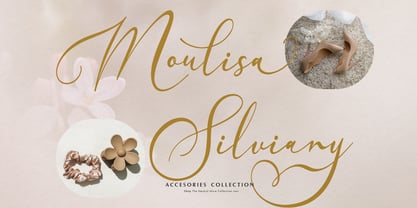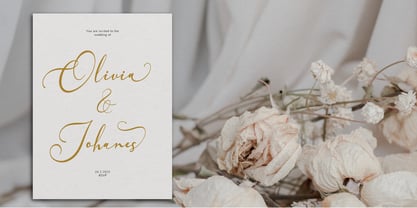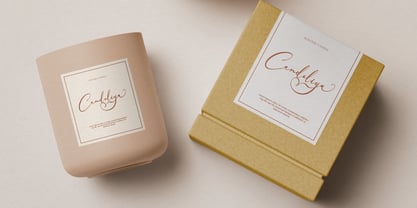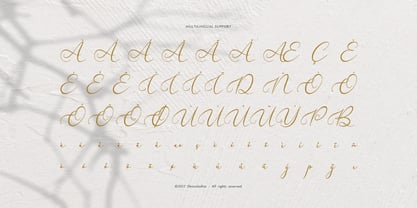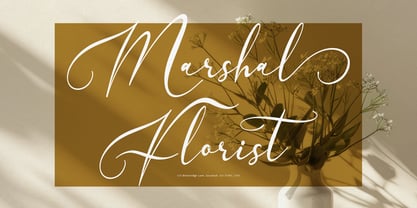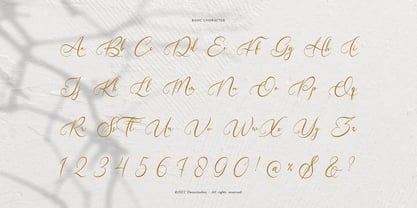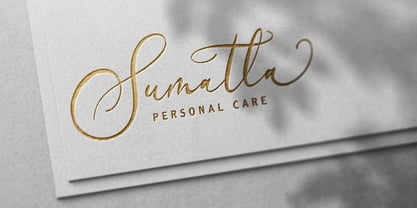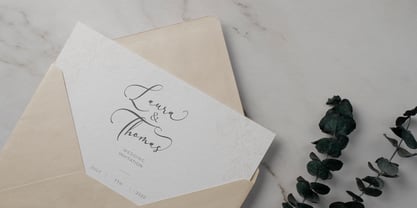
Velocity Romantica
The Velocity Romantica Font Family was designed by Dede Nugraha and published by Denustudio. Velocity Romantica contains 2 styles.
Velocity Romantica | Modern Calligraphy, from Denustudios, suitable for any projects such as: logos, branding projects, homeware designs, product packaging, mugs, quotes, posters, shopping bags, t-shirts, book covers, name card, invitation cards, greeting cards, label, photography, watermark, special events, and all your other lovely projects that need Modern Calligraphy a taste.
• Regular and Italic
• Standard glyphs
• Alternate and Ligature
• Fonts include multilingual support